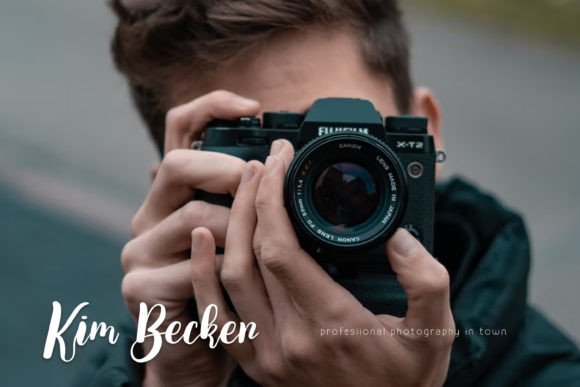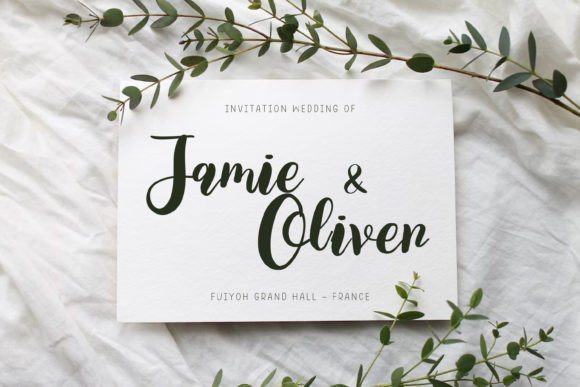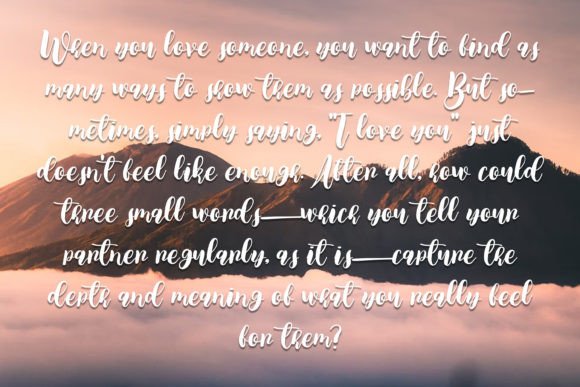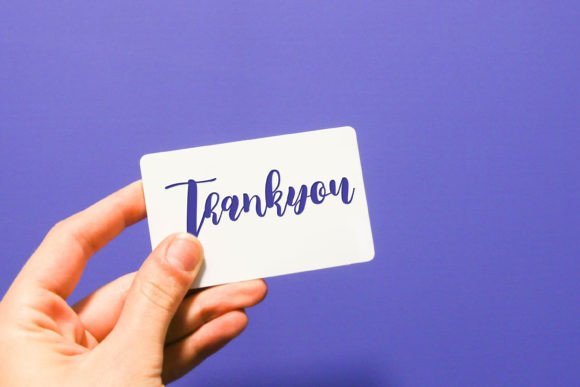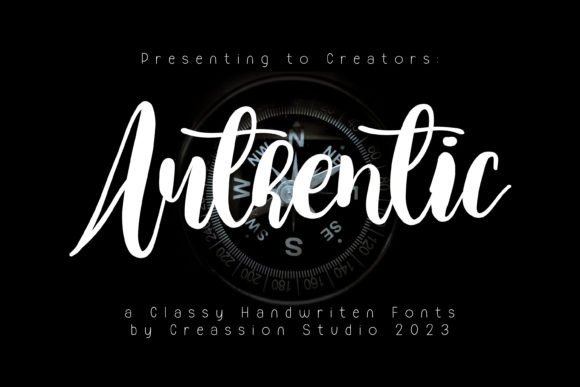
Discover the Charm of Authentic Fonts: Elevate Your Designs with Handwritten Style
In the world of design, fonts play a crucial role in conveying the tone and personality of a project. Among the numerous font styles available, authentic fonts have gained immense popularity for their unique, handwritten charm. In this article, we’ll explore the beauty of authentic fonts, their versatility, and how they can elevate your designs, from wall displays to social media posts.
What are Authentic Fonts?
Authentic fonts, also known as handwritten fonts, are typefaces that mimic the natural, flowing style of handwriting. These fonts are designed to replicate the imperfections and nuances of human handwriting, giving them a distinctive, personal touch. Authentic fonts can range from elegant, cursive scripts to bold, playful lettering styles.
The Benefits of Using Authentic Fonts
Authentic fonts offer several benefits that make them a popular choice among designers and crafters:
- Unique and eye-catching: Authentic fonts add a touch of personality to your designs, making them stand out from the crowd.
- Emotional connection: Handwritten fonts can evoke emotions and create a sense of connection with your audience.
- Versatility: Authentic fonts can be used in a wide range of applications, from formal to informal, and from digital to print.
- Flexibility: Authentic fonts can be paired with various design elements, such as images, textures, and colors, to create visually appealing compositions.
Perfect for Various Applications
Authentic fonts are perfect for a variety of projects, including:
- Wall displays: Add a personal touch to your wall art with authentic fonts that reflect your personality or brand.
- Wedding invitations: Create beautiful, one-of-a-kind wedding invitations with authentic fonts that set the tone for your special day.
- Social media post logos: Elevate your social media presence with custom logos featuring authentic fonts.
- Advertisements: Grab attention with bold, eye-catching ads that incorporate authentic fonts.
- Product packaging: Add a touch of personality to your product packaging with authentic fonts that reflect your brand’s identity.
- Product designs: Create stunning product designs with authentic fonts that complement your product’s aesthetic.
- Labels: Use authentic fonts to create custom labels that add a personal touch to your products.
- Photography: Add a watermark or overlay text with authentic fonts to give your photos a unique touch.
- Invitations: Create beautiful, handwritten-style invitations for any occasion.
- Stationery: Elevate your stationery with authentic fonts that add a touch of elegance and sophistication.
Tips for Using Authentic Fonts Effectively
To get the most out of authentic fonts, follow these tips:
- Choose the right font: Select a font that aligns with your brand’s personality and the tone of your project.
- Pair with simplicity: Balance authentic fonts with simple design elements to avoid visual overload.
- Experiment with colors: Play with different colors and textures to add depth and interest to your designs.
- Consider legibility: Ensure that your authentic font is legible and easy to read, especially for body text.
| Font Name | Authentic Font |
| Author | Creassion Studio |
Authentic fonts offer a unique and creative way to elevate your designs, from wall displays to social media posts. With their handwritten charm and versatility, authentic fonts can help you connect with your audience and add a personal touch to your projects. By choosing the right font, pairing it with simplicity, experimenting with colors, and considering legibility, you can create stunning designs that showcase your creativity and style.
Whether you’re a designer, crafter, or DIY enthusiast, authentic fonts are a valuable addition to your toolkit. So, explore the world of authentic fonts and discover the perfect style to bring your projects to life!